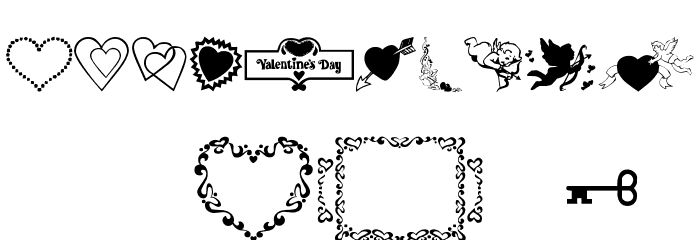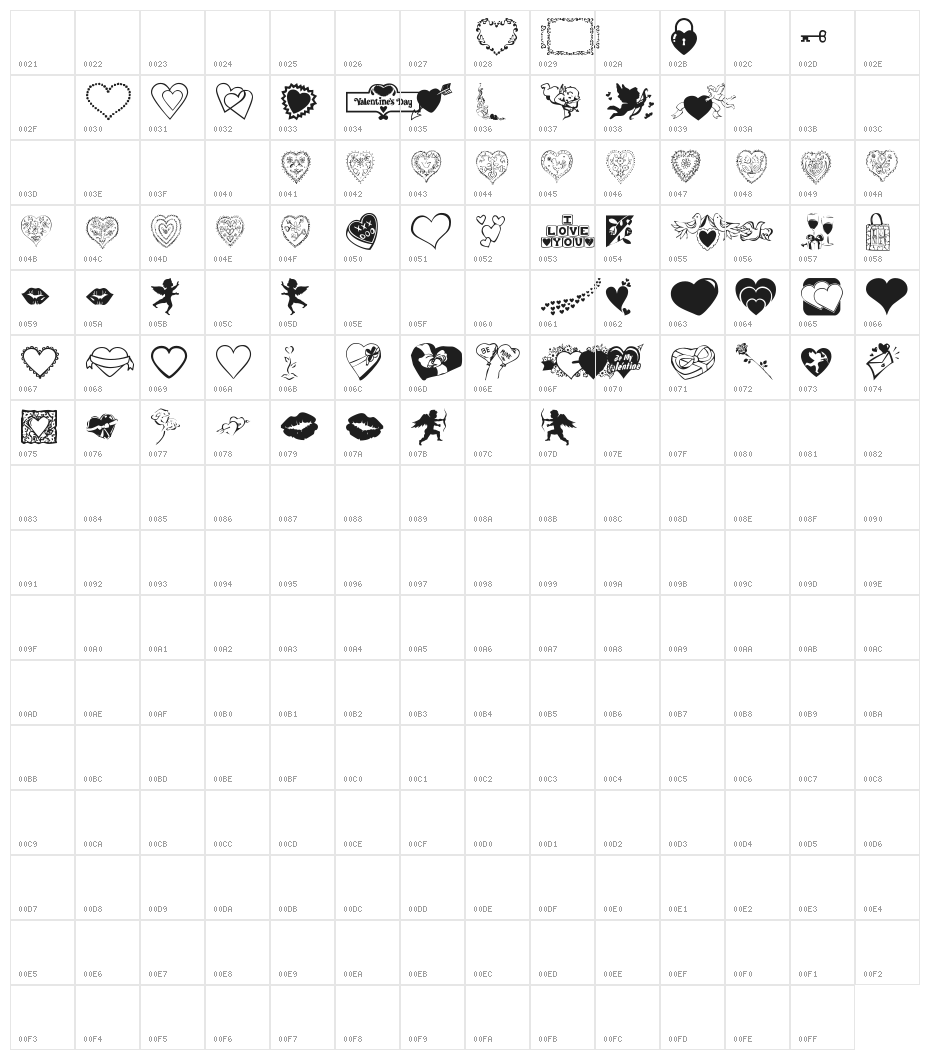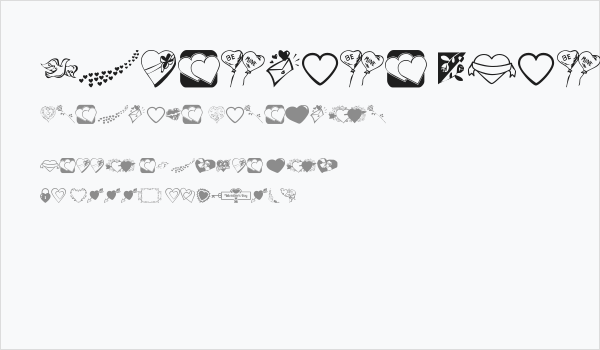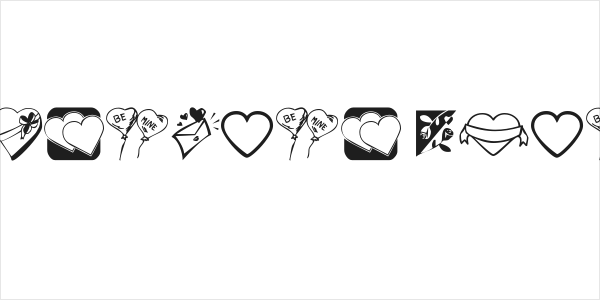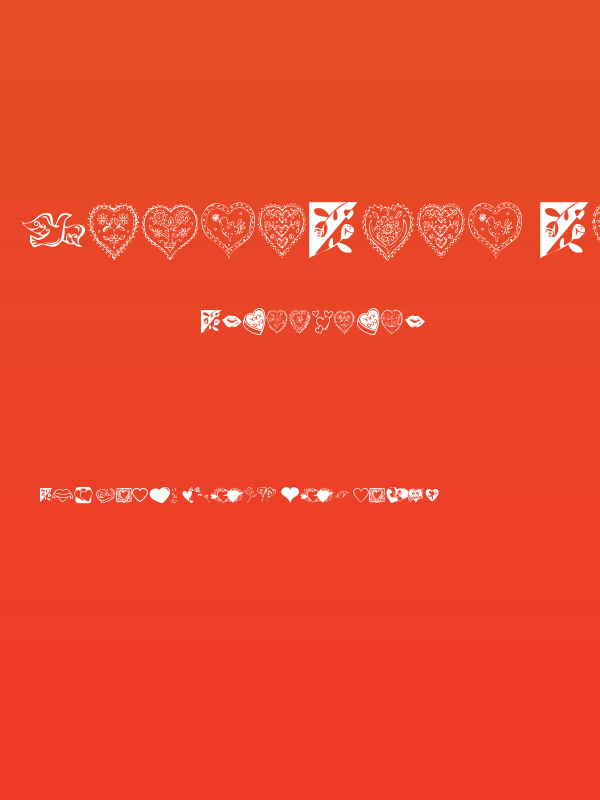
Valentine Things Font
Valentine Things Description
This collection features a variety of decorative heart-themed designs, perfect for Valentine's Day or romantic projects. The designs include intricate heart patterns, love-themed icons like doves, roses, and Cupid, as well as playful elements such as lips and gift boxes. Each symbol is crafted with attention to detail, offering a whimsical and charming aesthetic. The set is versatile, providing a range of options for embellishing cards, invitations, or digital content with a romantic flair.
| Use Case | Logos, Invitations, Decorative elements |
| Proposed Projects | Ideal for Valentine's Day cards, wedding invitations, romantic event decorations, and love-themed digital content. |